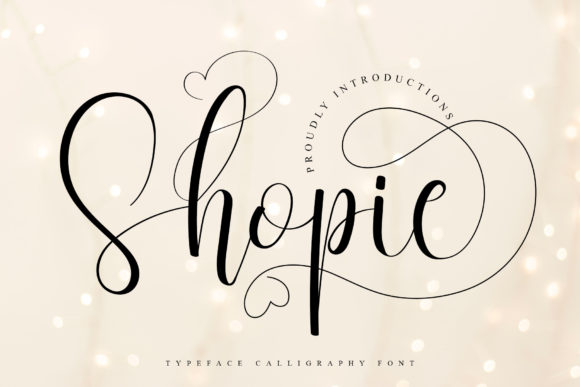
Shopie Script: Crafting Romance in Every Design
There are typefaces that simply convey words, and then there are those that tell a story. Shopie Script belongs firmly in the latter category. As a dazzling and detailed script font, it carries a personality that is immediately recognizable: romantic, elegant, and full of life. If you’ve been searching for a typeface that adds a touch of human warmth to your digital creations, you may have just found your match.
Unlike rigid geometric typefaces, Shopie Script mimics the fluidity of natural handwriting. It features high contrast between thick and thin strokes, a characteristic often found in classic calligraphy but updated with a modern flair. The swashes are generous and expressive, allowing letters to dance across the page. This isn't a font for reading long paragraphs of body copy; rather, it is a display font designed to command attention. It is the typographic equivalent of a handwritten love letter—intimate, personal, and deeply engaging.
Where This Creative Font Truly Shines
The versatility of a script font like Shopie Script is often underestimated. While many associate cursive styles solely with traditional stationery, this premium font adapts beautifully to a wide range of modern contexts. Its visual style bridges the gap between vintage charm and contemporary graphic design, making it a valuable asset in your toolkit.
Wedding Stationery and Event Branding
The most natural habitat for Shopie Script is, of course, the world of weddings. From save-the-dates to the final thank-you notes, this font sets the tone for romance. However, it goes beyond standard invitations. Think about menu cards, place settings, and signage. When used on textured paper stocks, the fine details of the typeface really pop, creating a tactile experience that feels luxurious. It pairs exceptionally well with a clean serif font for the body text, ensuring that the important details remain readable while the headers capture the mood.
Logo Design and Brand Identity
For entrepreneurs and small business owners, your brand identity is your handshake. If your business focuses on lifestyle, beauty, fashion, or artisanal goods, Shopie Script can become the cornerstone of your visual strategy. Imagine a bakery logo or a boutique clothing tag using this font; it instantly communicates quality and care. However, a word of caution from a brand strategist: legibility is key in logo design. Ensure that the letter connections in Shopie Script are clear at the size you intend to use. A good logo must be recognizable whether it is on a billboard or a favicon.
Digital Presence and Marketing
In the realm of web design and social media graphics, standing out is difficult. Shopie Script offers a solution to the "sea of sameness" created by overused system fonts. It works wonderfully for Instagram quotes, Pinterest pins, and YouTube thumbnails where you need to evoke emotion quickly. Because it is a handwritten font, it breaks the sterile barrier often found in digital interfaces, making your content feel more approachable. It is particularly effective for call-to-action buttons or headers on landing pages where you want to draw the user's eye.
Practical Guidance for Using Shopie Script
As a design asset, Shopie Script is powerful, but like any tool, it requires skill to wield effectively. Here is how to evaluate if this creative font fits your project and how to implement it for maximum impact.
Evaluating Project Fit
Before you download and install, ask yourself: What is the primary function of this text? If the answer is "to be read quickly and efficiently" (like a user manual or a legal disclaimer), put this font away. Shopie Script is not designed for high-volume legibility. It is designed for atmosphere. Use it for headlines, sub-headers, pull quotes, or decorative elements. If your project requires a modern, industrial, or aggressive look, this romantic style will likely clash with your message.
Mastering Font Pairing
The secret to making a script font look professional rather than chaotic is the pairing. Shopie Script has a lot of personality, so it needs a partner that can play a supporting role without fighting for the spotlight.
Avoid pairing it with other handwritten fonts or decorative display fonts. This creates visual noise and makes the design look amateurish.
Technical Considerations and Readability
When working with detailed scripts, size matters. Shopie Script is best used at larger sizes where its intricate swashes can be appreciated. If you use it too small, the ink traps may bleed together, making the text unreadable. Always print a test sheet or view it on multiple devices if you are designing for web design.
Furthermore, check the character set of the commercial font you purchase. High-quality fonts often include alternate characters and ligatures. Using these alternates allows you to customize the flow of the letters, ensuring that two identical letters next to each other don't look exactly the same, which adds to the authenticity of the handwritten feel.